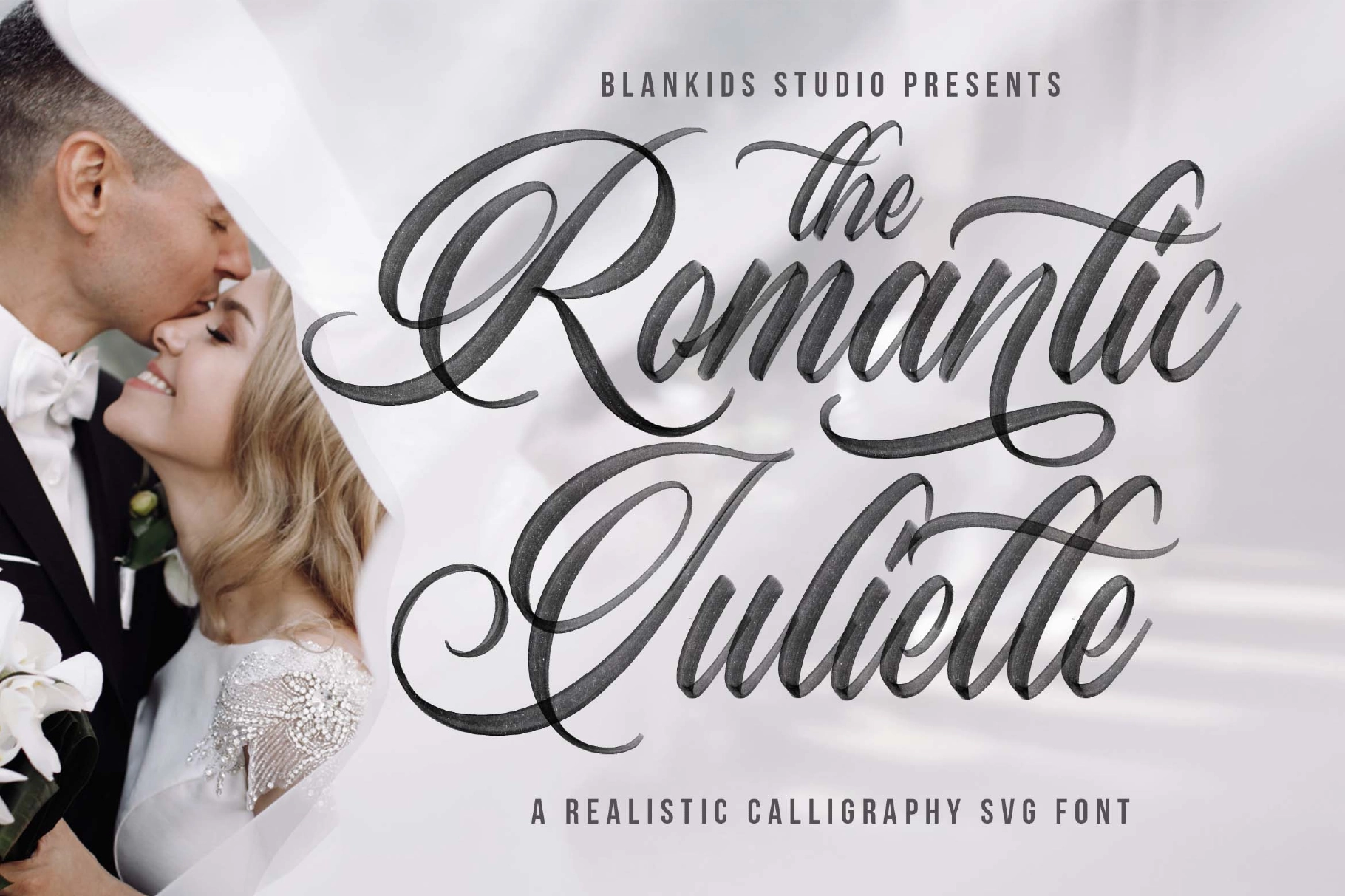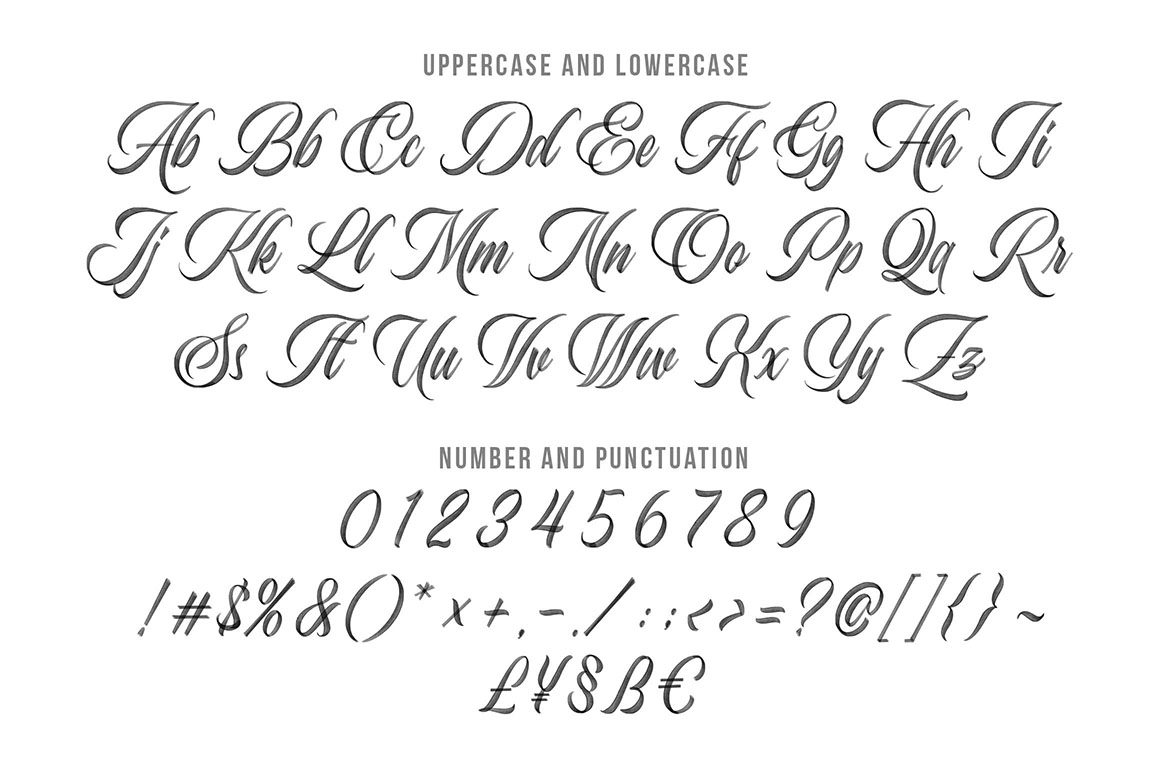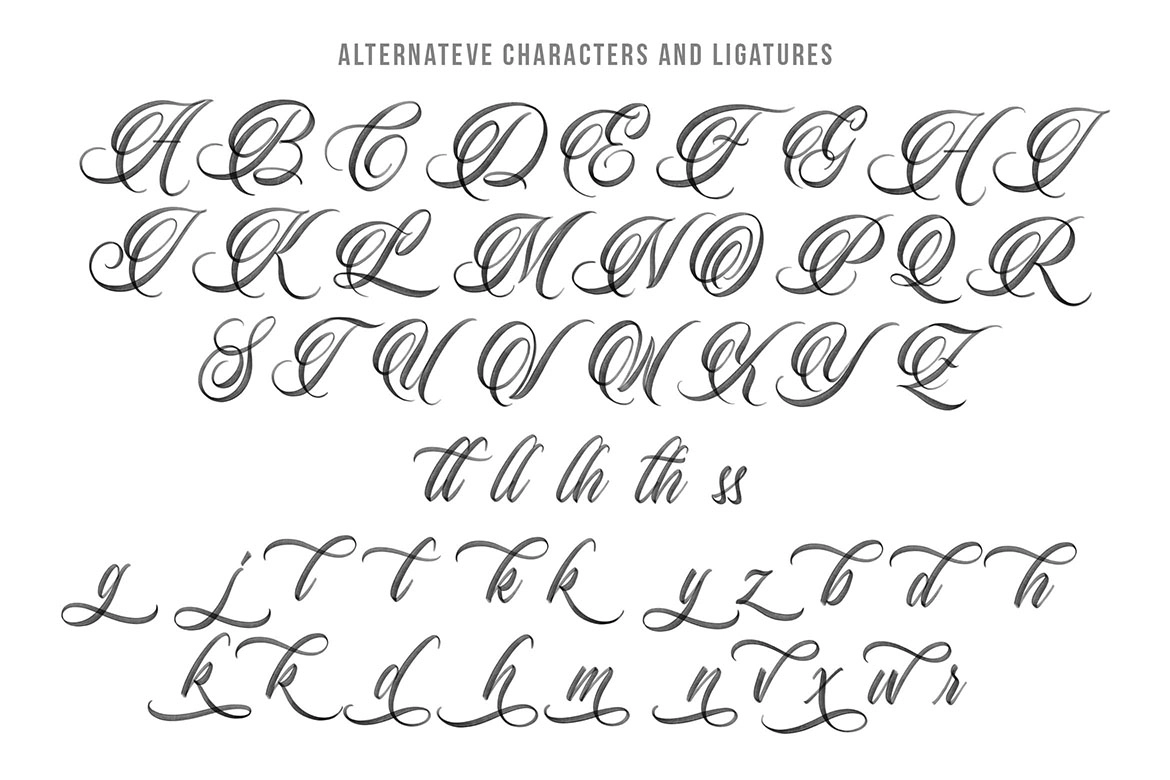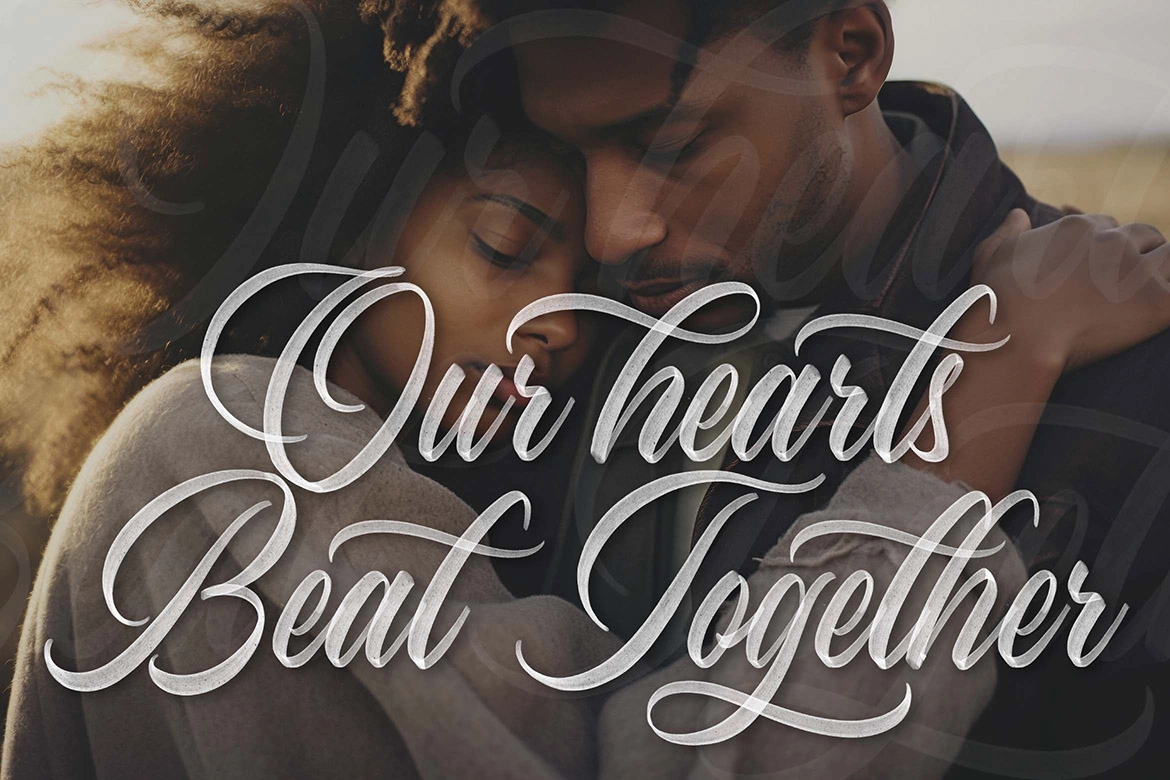
Romantic Juliette SVG Font
Romantic Juliette Regular
Romantic Juliette, a realistic calligraphy SVG font is made for any professional project branding, such as logotype, wedding invitation, watermarks, poster, branding, promotions, product packaging, etc. Every letter has a realistic calligraphy style.
Romantic Juliette font includes a full set of modern clean script uppercase and lowercase letters, numerals and punctuation. This font has a realistic calligraphy style. See the previews above to get some inspiration on how to use them.